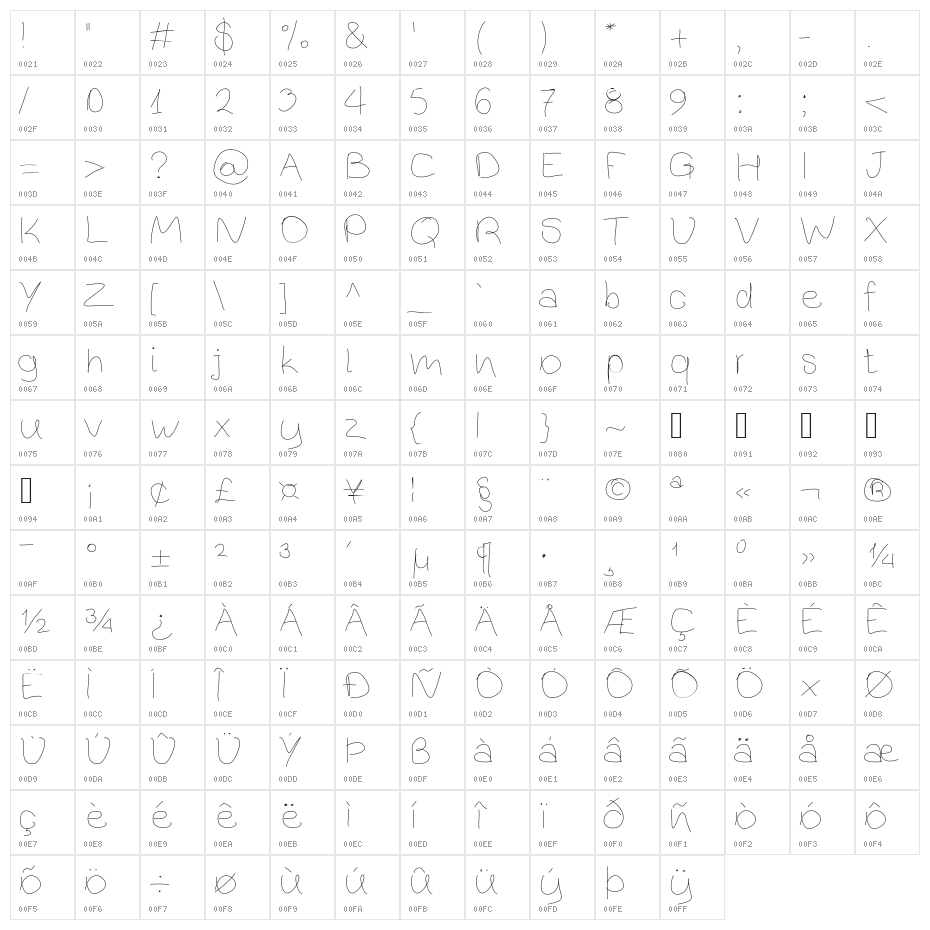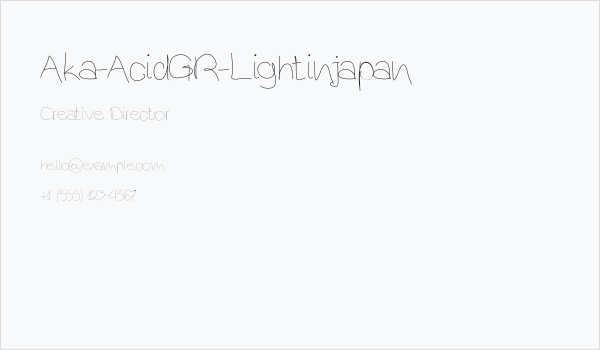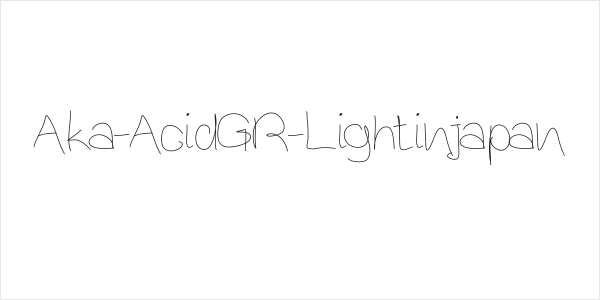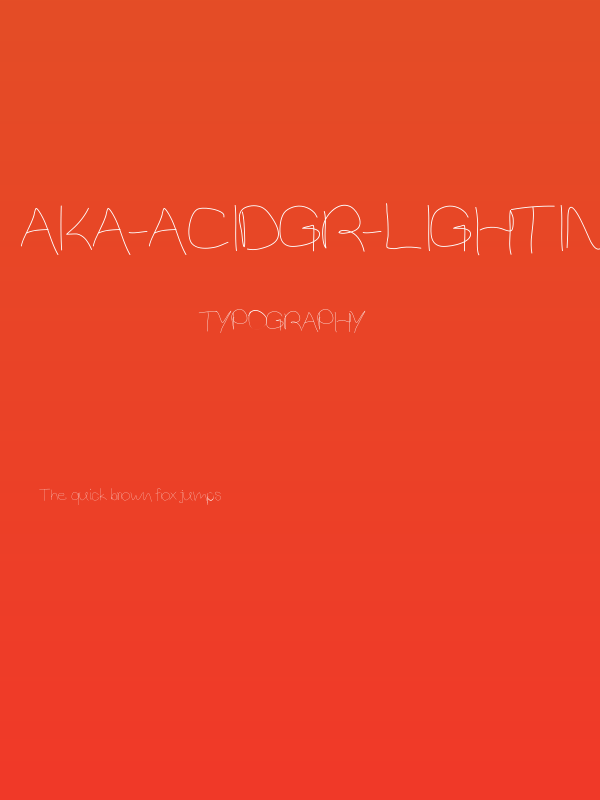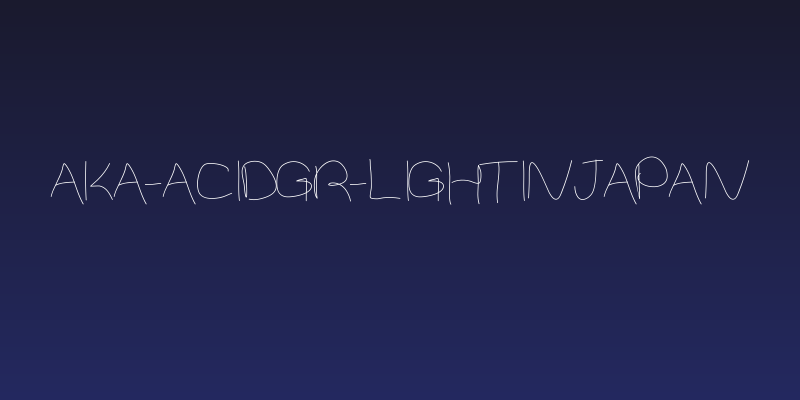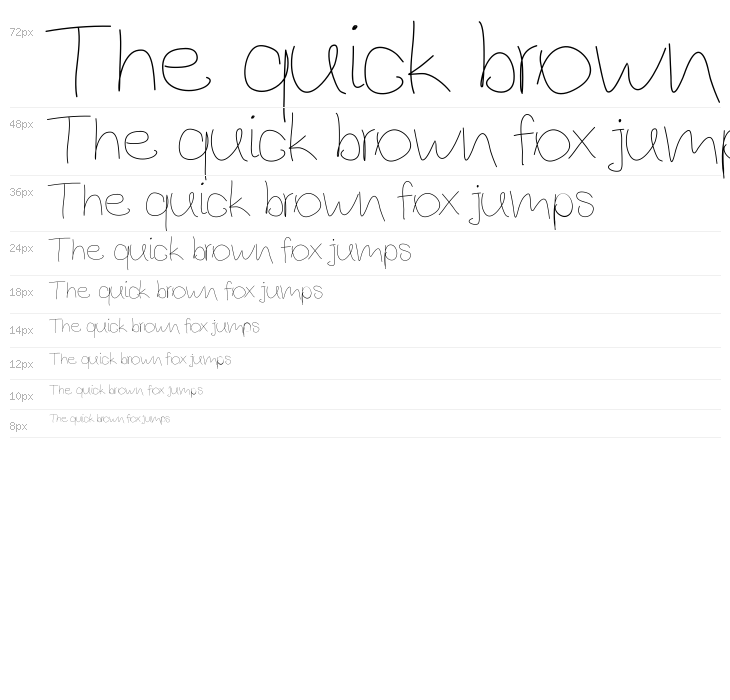
Aka-AcidGR-Lightinjapan Font
Aka-AcidGR-Lightinjapan Description
This font features a playful and whimsical design with thin, hand-drawn strokes that give it a casual and informal appearance. The characters are slightly irregular, adding to the charm and uniqueness of the style. The uppercase and lowercase letters maintain a consistent flow, with rounded edges and a slight slant that suggests movement and energy. The numerals and special characters follow the same aesthetic, ensuring a cohesive look across all text elements. This font is ideal for projects that require a personal touch or a creative flair.
| Proposed Projects | Ideal for greeting cards, children's books, creative posters, and casual branding. |